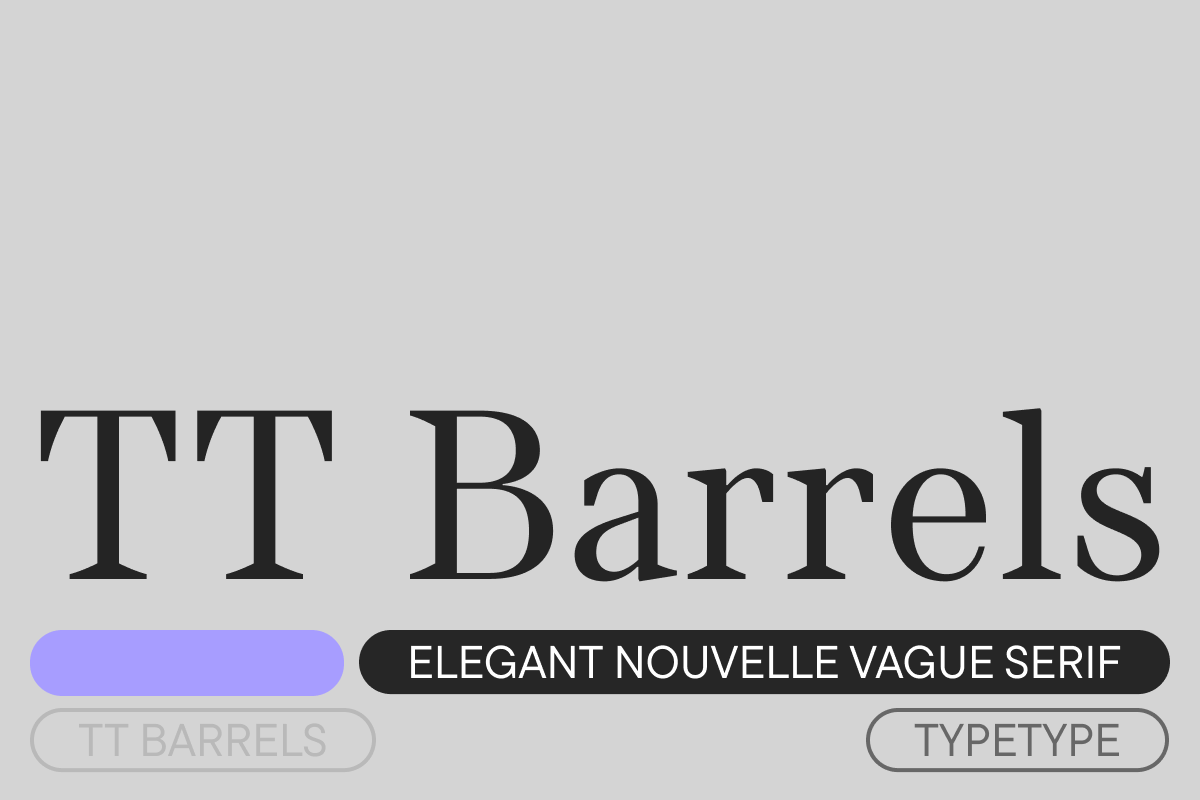
TT Barrels DemiBold Italic
TT Barrels is an elegant scotch style modern serif with strong industrial accents. It was born from a fictional brief to merge the efficiency and constraints of industrial engineering with the beauty of a scotch style serif. The goal was to create a typeface suitable for pressing letters onto a car’s metal body—robust yet refined, combining technical precision with the sophisticated details of classic text fonts from the late 19th and early 20th centuries.